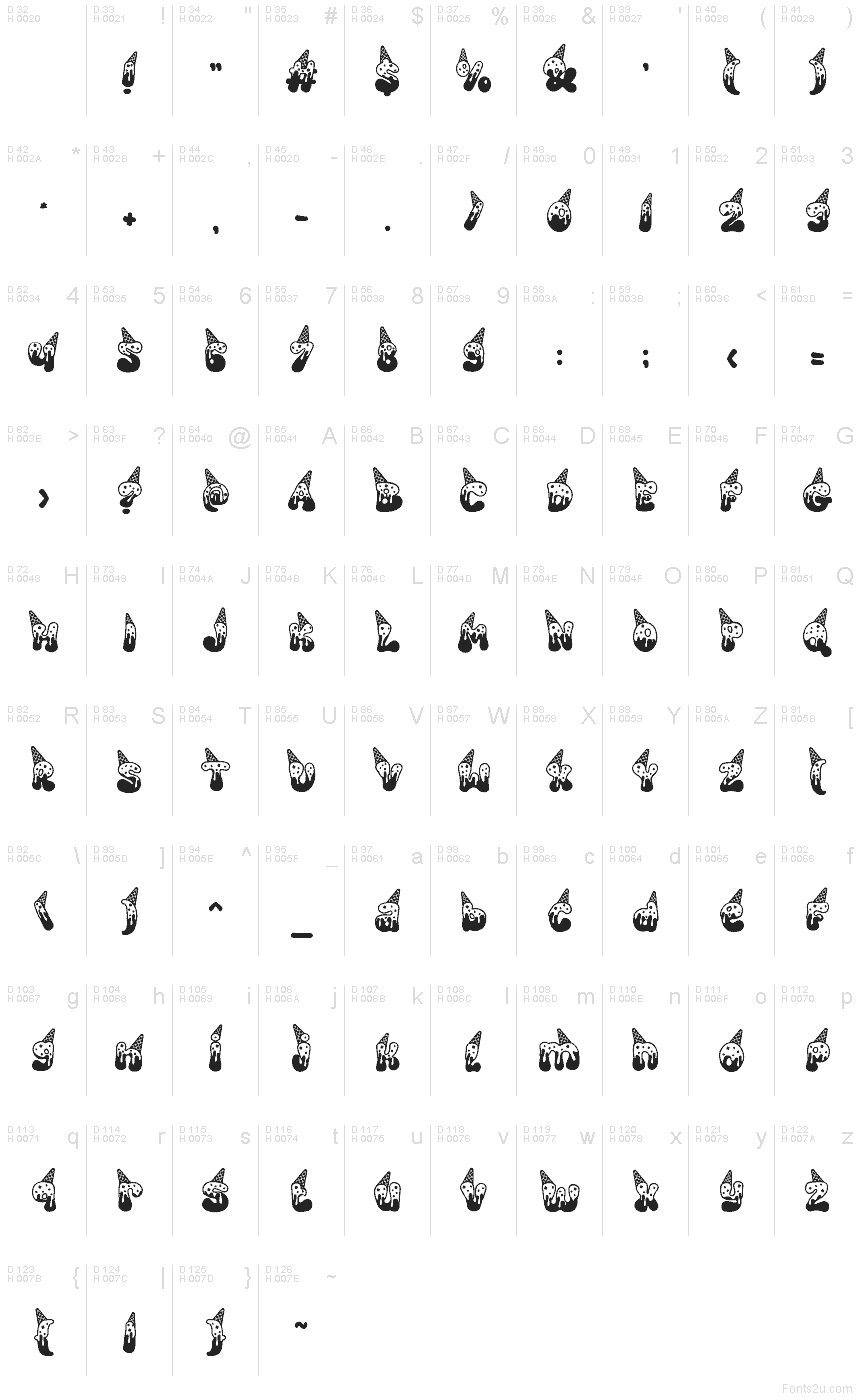
Cold Snowflake Three
Cold Snowflake Three font by PutraCetol Studio is a playful cartoon display font whose style makes it extremely suitable for art and design projects for kids. Rounded edges and bold curved forms are some of the main aspects that help to give its letters a bubbly, whimsical, and decorative appearance.